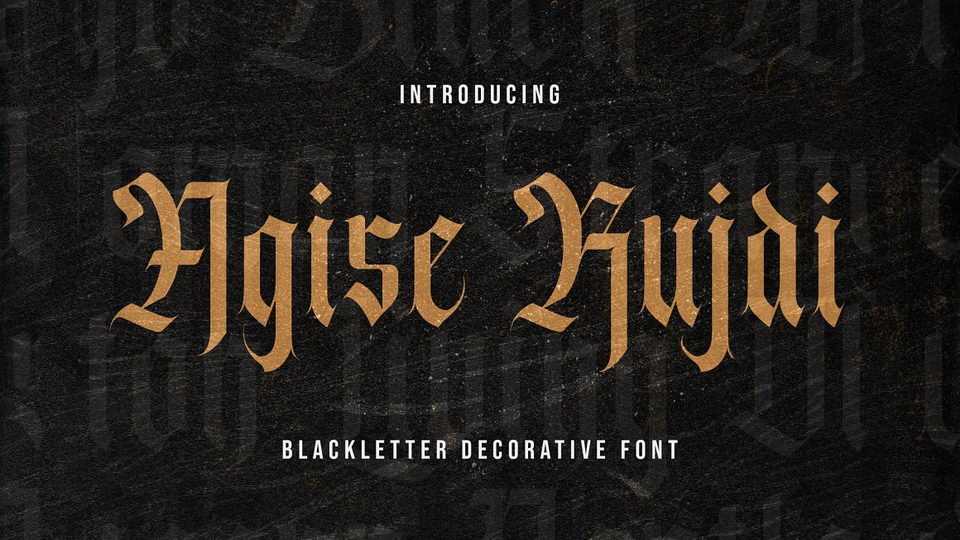
Download Agise Rujdi font, an incredibly authentic and daring blackletter typeface. Agise Rujdi is perfect to your favorite creative projects to make them stand out.